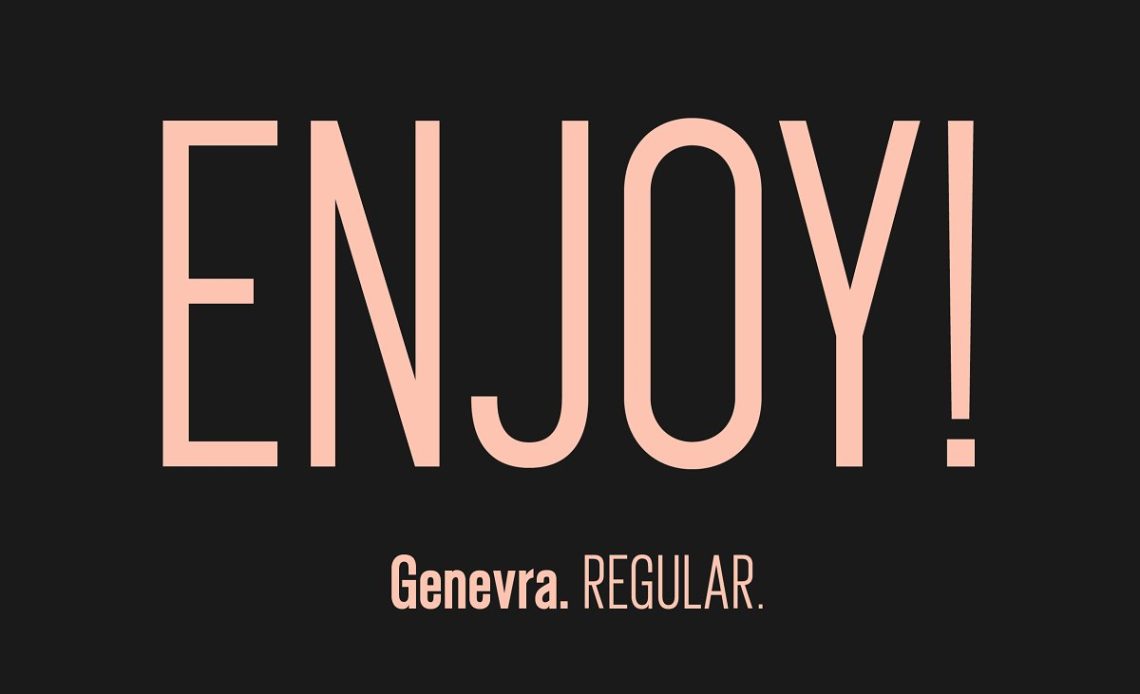
Looking for the perfect font to elevate your designs? Look no further than Genevra Condensed Font, the best font for typography on the market today. Created by font designer Matt Chansky, Genevra Condensed Font is the ultimate choice for designers who want a modern and versatile sans-serif font that can be used for a wide variety of projects.
Genevra Condensed Font has recently undergone a major cleaning, making it even more appealing to designers who demand the best. This font features upper and lowercase letters, as well as six different weights: extra light, light, regular, semi-bold, bold, and slanted. And with its multilingual capabilities, Genevra Condensed Font is perfect for any project, no matter where in the world you're based.
Designers around the globe have used Genevra Condensed Font to create stunning product designs, eye-catching labels, dynamic posters, attention-grabbing social media marketing materials, stylish sports apparel, and unforgettable event branding. With its versatility and modern aesthetic, this font is perfect for any design project you can dream up.
So what will you create with Genevra Condensed Font? Let your imagination run wild and see where this incredible font can take you. With its clean lines and striking appearance, Genevra Condensed Font is the ideal choice for designers who want to make a bold statement and leave a lasting impression. Don't settle for anything less than the best font for typography – choose Genevra Condensed Font today.